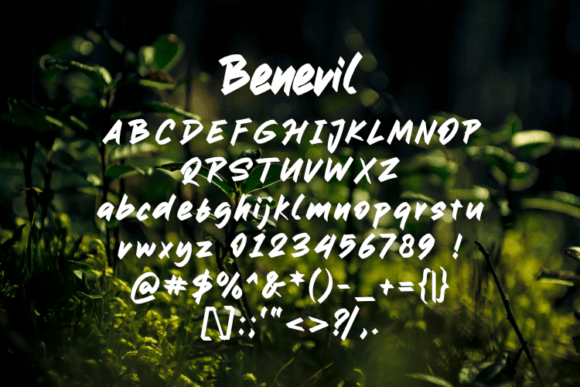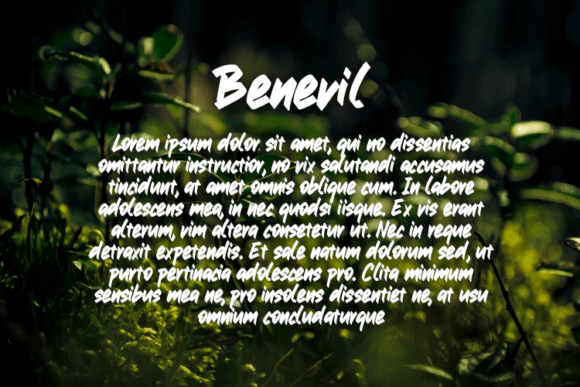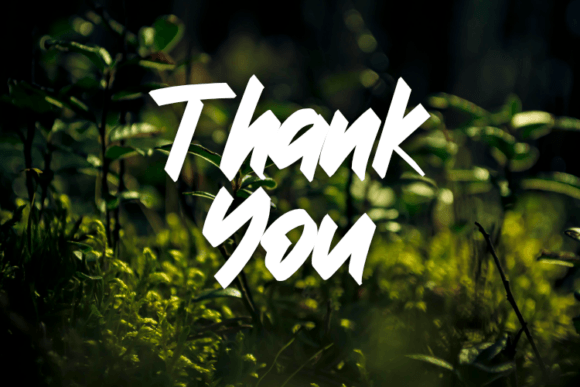
Unlock Endless Design Possibilities with Benevil Font
In the realm of design, the right font can elevate your project from ordinary to extraordinary. For those seeking a versatile and sophisticated typeface, look no further than Benevil. This meticulously crafted font is designed to enhance your clothing and product design endeavors, offering a tasteful flair that sets your creations apart.
The Versatility of Benevil
Benevil is more than just a font; it’s a tool that can transform your design experience. Its rigorous design ensures that it can be applied to a myriad of projects, from fashion and apparel to product design and beyond. Whether you’re creating custom t-shirts, designing logos, or working on any other visual project, Benevil provides the perfect blend of style and functionality.
Convenience and Flexibility
Sophistication in Every Stroke
Benevil is a deftly crafted medium that exudes sophistication in every stroke. Its design is not just about aesthetics; it’s about creating a lasting impression. When you use Benevil in your designs, you’re not just adding text; you’re adding a layer of elegance and refinement that can elevate your brand or product. This font is perfect for designers who want to add a professional touch to their work without compromising on creativity.
Whether you’re a professional designer or a crafter who loves to personalize t-shirts and other products, Benevil is an invaluable resource. Its versatility and ease of use make it an ideal choice for anyone looking to enhance their design projects. With Benevil, you can create stunning custom apparel, unique product designs, and so much more. The font’s adaptability ensures that it can be used across various platforms and applications, making it a reliable tool in your design arsenal.
The real power of Benevil lies in its ability to unlock endless design possibilities. With this font, you’re not limited to a specific style or project type. You can use it to create:
- Custom t-shirts and apparel
- Branded product designs
- Logos and business cards
- And so much more
Benevil is more than just a font; it’s a gateway to limitless creativity and design possibilities. Its versatility, universal compatibility, and sophisticated design make it an indispensable tool for designers and crafters alike. Whether you’re looking to enhance your clothing and product designs or seeking a reliable font for your next project, Benevil is the perfect choice. Experience the difference that Benevil can make in your designs and discover a world of creative possibilities.